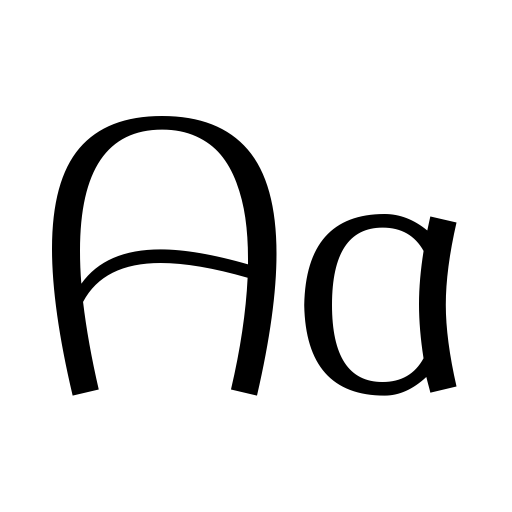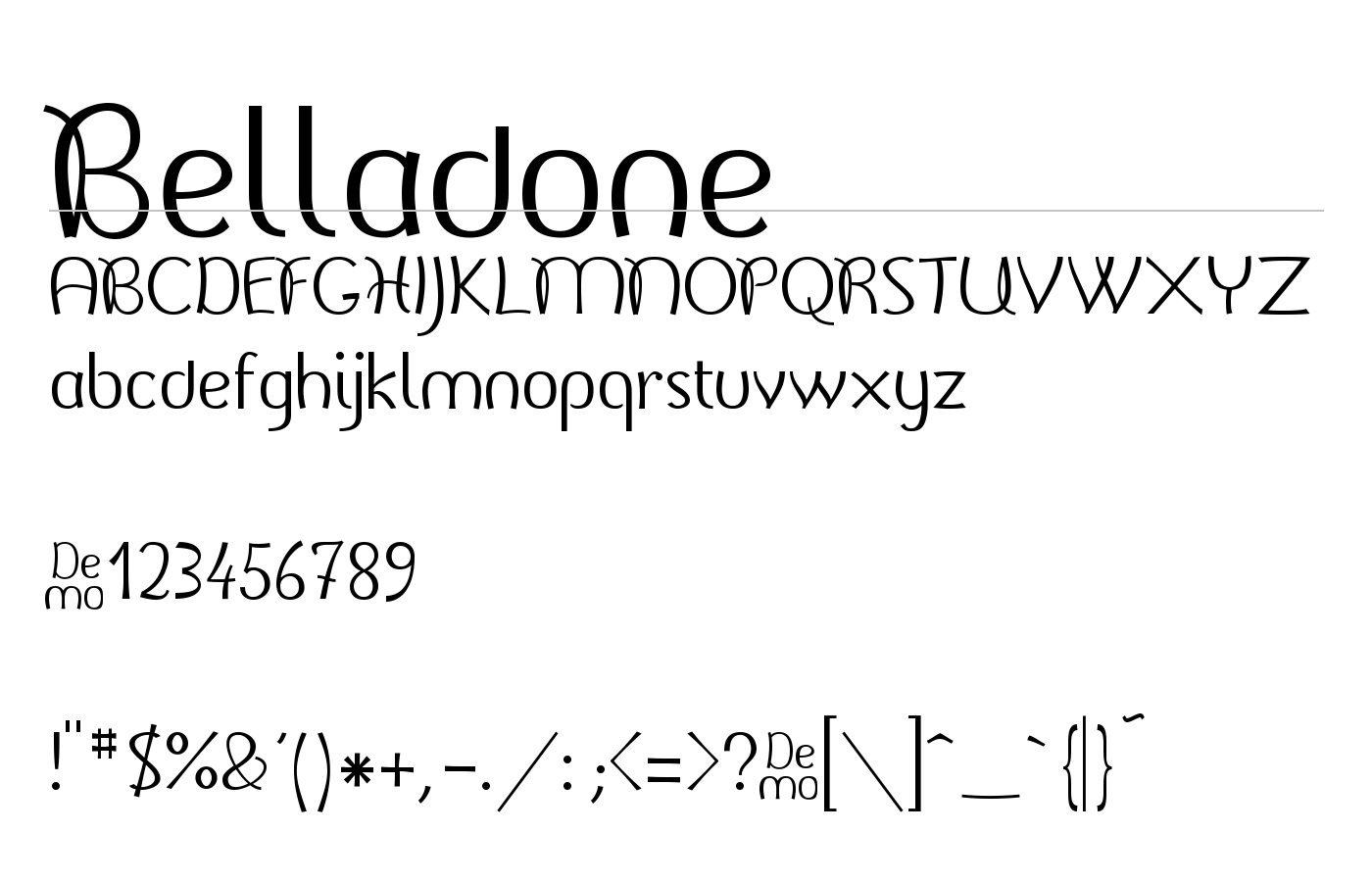
Belladone is a whimsical sans serif font with a playful and quirky character, featuring narrow, slightly condensed letterforms with irregular stroke weights and unique curves that give it an artistic hand-drawn feel. Its tall x-height and mix of double- and single-story letters create a lively texture, making it ideal for creative projects, children’s books, logos, and informal branding where a friendly, distinctive voice is needed. This font shines in display uses, bringing charm and personality to headlines and decorative text.
Belladone Font
About Belladone Font